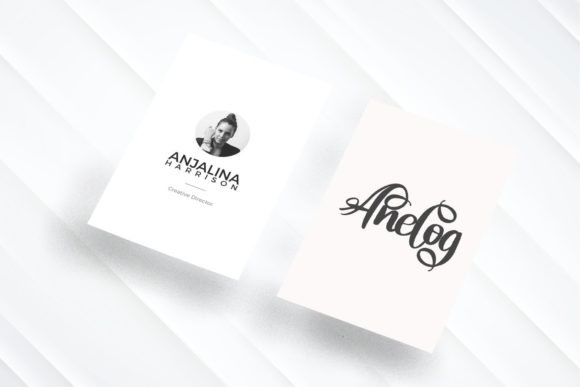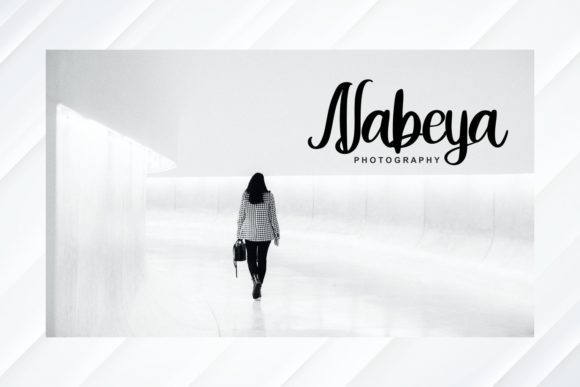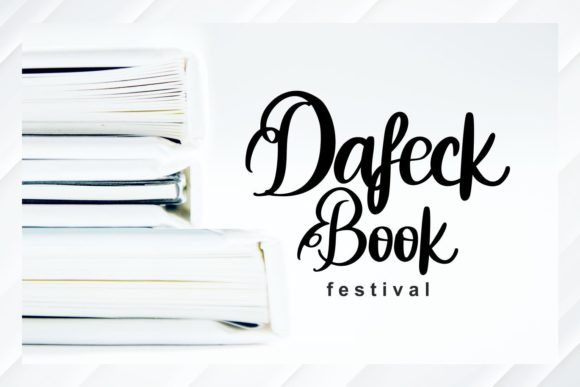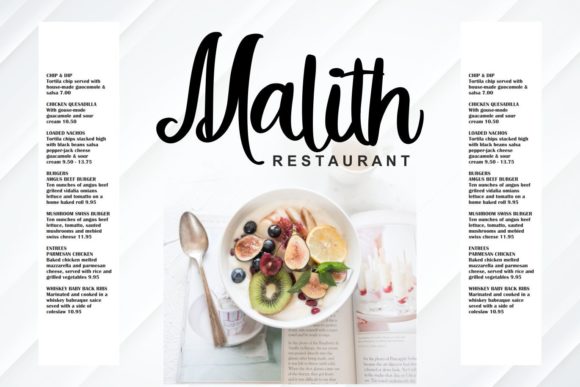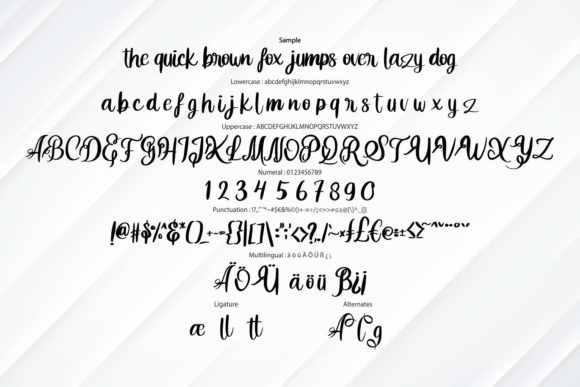
Introduction to Krofin Font
As a designer, there’s nothing quite like the thrill of bringing a creative project to life. The blank page stares back at you, waiting for your vision to take shape. It’s in these moments that the right design resource can make all the difference. For many, the search for that perfect font is a never-ending quest – until now. Introducing the Krofin Font, an elegant script font that’s poised to elevate your designs to new heights.
With its contemporary atmosphere and impeccable form, the Krofin Font is the perfect choice for designers seeking a high-quality, timeless look. Its balanced and varied strokes make it a versatile addition to any project, from elegant invitations to creative marketing campaigns. And the best part? It’s available for free download, making it an accessible addition to your design arsenal.
Whether you’re working on a high-profile campaign or a personal creative project, the Krofin Font is a valuable asset that’s sure to enhance the beauty of your work. Its transparent background and elegant design make it a perfect fit for any design need, from logos to digital displays. Get ready to take your designs to the next level with the Krofin Font.
Key Features of Krofin Font
- High-quality design resource for creative projects, offering a unique and stylish aesthetic.
- Features a transparent background, allowing for easy layering and customization in design applications.
- Designed with versatility in mind, making it suitable for use in logos, graphics, and other creative projects.
Honest Review: Krofin Font
As a designer, I’ve come across my fair share of fonts, but Krofin Font is definitely one that stands out. I was excited to try it out for my current creative project, and I’m glad I did.
Here are some things that work well with Krofin Font:
- High quality: Krofin Font is incredibly detailed and crisp, making it perfect for both digital and print designs.
- Great for titles and headings: Krofin Font’s bold and modern design makes it perfect for titles and headings.
However, there are some limitations to keep in mind:
- Limited character set: Krofin Font’s character set is limited, which can be a problem if you need to typeset a long piece of text.
- Not suitable for body text: While Krofin Font is great for titles and headings, it’s not the best choice for body text due to its bold and attention-grabbing nature.
Overall, I’m impressed with Krofin Font and would definitely recommend it to designers looking for a high-quality font for their creative project.
Tips for Getting the Most Out of Krofin Font
Experiment with different font sizes and styles to create visual interest. Use the font in combination with other design elements, such as images and shapes, to create a cohesive look.
The Krofin Font is ideal for use in branding materials, such as business cards and logos, as well as in creative projects, like infographics and posters. Its high-quality design and transparent background make it a versatile resource for designers.